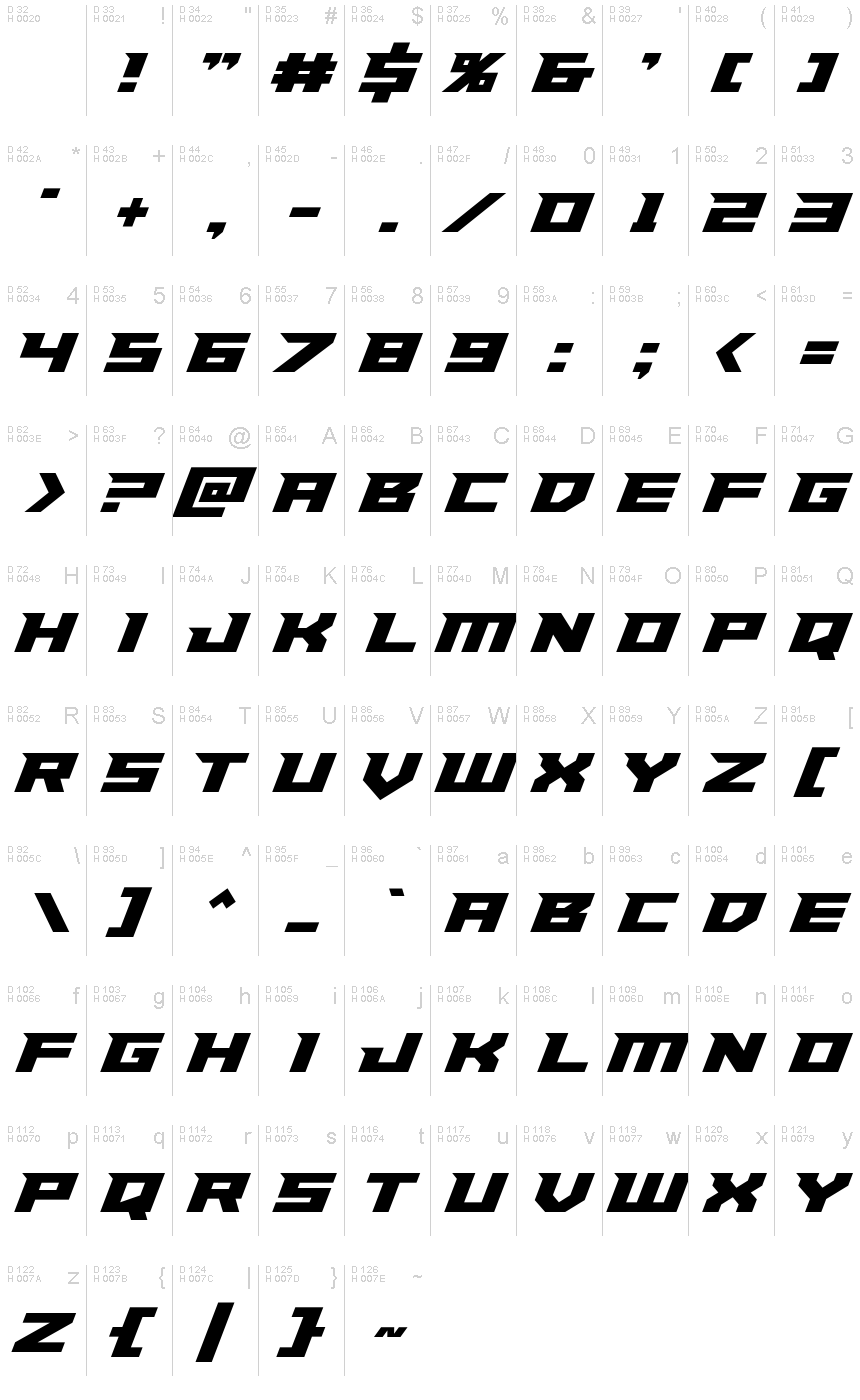
Paladins
Paladins, a striking and futuristic display font, commands attention with its bold and expanded silhouette. Crafted by designer Daniel Zadorozny, this font exudes a sense of strength and modernity, making it an ideal choice for bold branding, dynamic headlines, and immersive gaming experiences.
The exaggerated width of the characters creates a powerful, larger-than-life presence, while the seamless, angular lines convey a sleek, high-tech aesthetic.
Paladins is a versatile font that can lend an air of excitement and technological sophistication to a wide range of design applications, from packaging and posters to logos and digital interfaces. Its bold and futuristic personality makes it a standout choice for projects that require a visually striking and impactful typographic element.